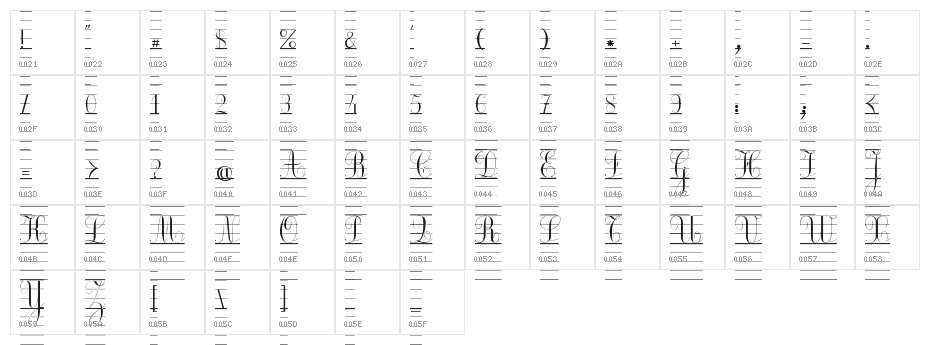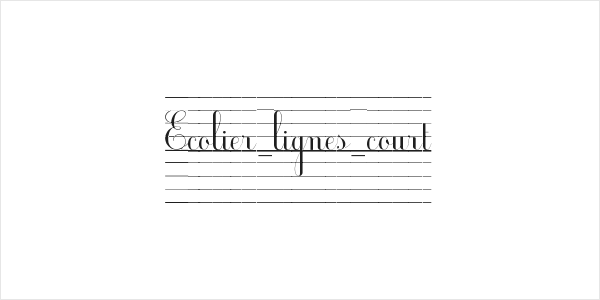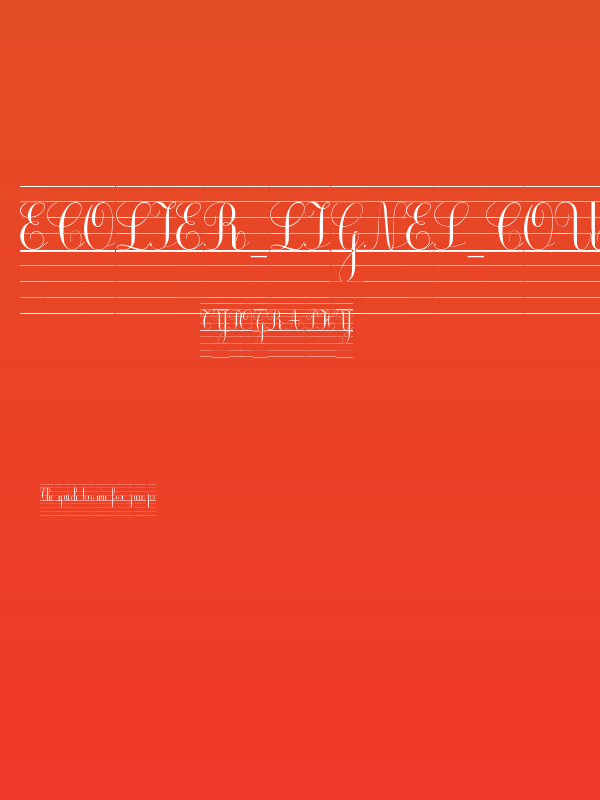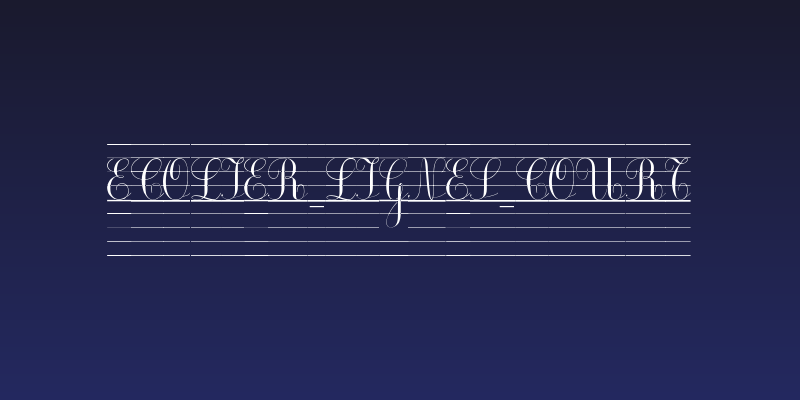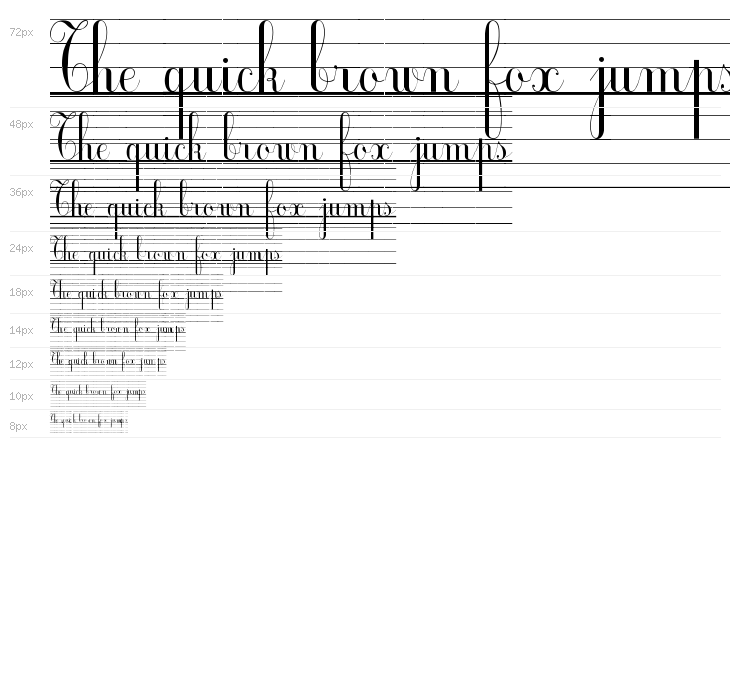
Ecolier_lignes_court Font
Ecolier_lignes_court Description
This elegant script font features a classic cursive style with flowing, connected letters that mimic traditional handwriting. The uppercase letters are adorned with intricate loops and flourishes, adding a touch of sophistication and grace. The lowercase letters maintain a consistent flow, with smooth curves and delicate strokes. The numerals are clear and legible, designed to complement the overall script style. Special characters are thoughtfully integrated, maintaining the font's cohesive aesthetic. This font is ideal for projects that require a personal, handwritten touch, such as invitations, greeting cards, or elegant branding materials.